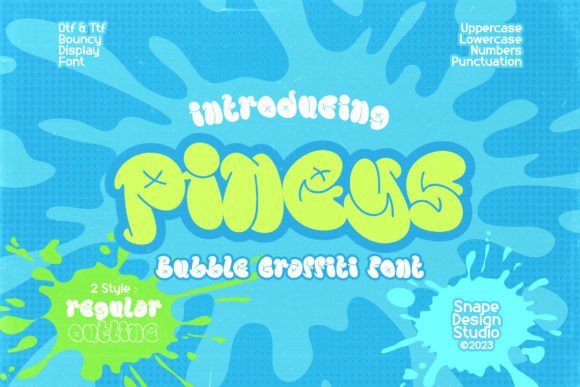
Introducing Pineys Font, a visual explosion that transports you back to the free-spirited era of early 2000s graffiti. This display font is a vibrant embodiment of urban energy, inspired by the bold strokes and playful curves of street art.
With its bubble style, Pineys Font exudes a sense of nostalgia, capturing the essence of graffiti's rebellious spirit. Its quirky and expressive nature makes it the perfect choice for adding a touch of fun and personality to your designs.
Whether you're creating eye-catching posters, designing quirky logos, or crafting custom t-shirts, Pineys Font is your gateway to expressing yourself in a truly unique and captivating way. Let your creativity soar as you infuse your projects with the vibrant energy of street culture.
Embrace the spirit of urban rebellion and artistic expression with Pineys Font. Unleash your inner artist and turn your designs into masterpieces that radiate individuality and style. Its playful character is guaranteed to leave a lasting impression on your audience.
With Pineys Font, you're not just downloading a font; you're tapping into a legacy of creativity and self-expression. Join the ranks of urban artists and let your designs speak volumes about your unique personality. Pineys Font is more than just a font; it's a creative revolution waiting to be unleashed.